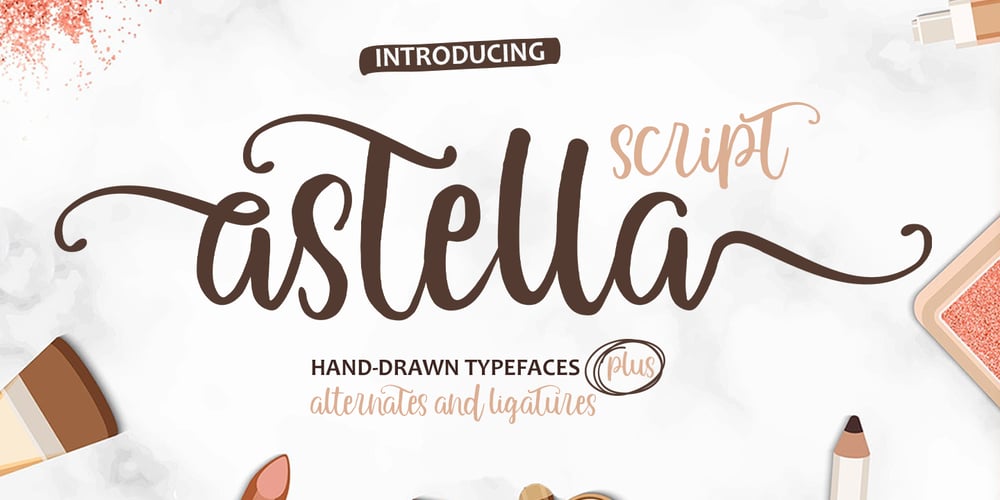
Astella Script Font Family was designed by Naufal Paramata and published by Youngtype. Astella Script contains 1 styles and family package options. Astella Script is a hand brush font made with brushes and ink. This typeface is ideal for use in thick watercolor designs or handwriting styles, such as blog titles, posters, wedding elements, t-shirts, clothing, book covers, business cards, greeting cards, branding, merchandise, and more.Contains full set:- Uppercase- Lowercase- Alternative- Ligatures- Punctuation- Numbers- Multi-lingual supportHow to access all alternative characters, using Windows Character Map with Photoshop:https://www.youtube.com/watch?v=Go9vacoYmBwHow to access all alternative characters using Adobe Illustrator:https://www.youtube.com/watch?v=XzwjMkbB-wQThank you!